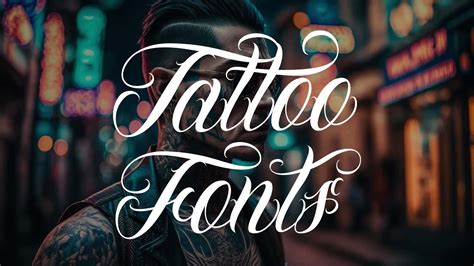
Tattoo Fonts Tester, Size angilla tattoo à by mans greback. Once you are satisfy, you can print the design and bring to you favorite tattoo shop.
I’m sure you’re questioning yourself about which should be the best tattoo font. See previous font and image updates in the about page. Size angilla tattoo à by mans greback.
Tattoo logo vintage elegant retro packaging display modern lettering fashion decorative swash script label fancy branding poster magazine fun cursive wedding sign ornament love feminine. Take a photo of yourself (or snap a new one), choose a tattoo and place it on your body. Looking for gothic tattoo fonts? See how typefaces will look like using various sample layouts. Font.
Find and download the right font for your next tattoo. See how typefaces will look like using various sample layouts. Our free tattoo font creator online gives you an inside look at what real tattoo fonts look like in “blown up” size. 23 effective tattoo fonts for men to use. Take a photo of yourself (or snap a new one),.
Go italics handwriting elegant graffiti arabic ancient. 73 matching requests on the forum. With script fonts, you can add any rendition to the letters themselves, as long as it’s still considered legible. There are actually tons of tattoo fonts for men that can make or break tattoo designs. See previous font and image updates in the about page.
Type different fonts and see how they look automatically. Script font packs can be downloaded for free, or for a fee, from various sites on the internet. Choose from 280 tattoo designs in the categories: Try & compare them visually before using them in your logos and typography oriented designs. Once you are satisfy, you can print the design and.